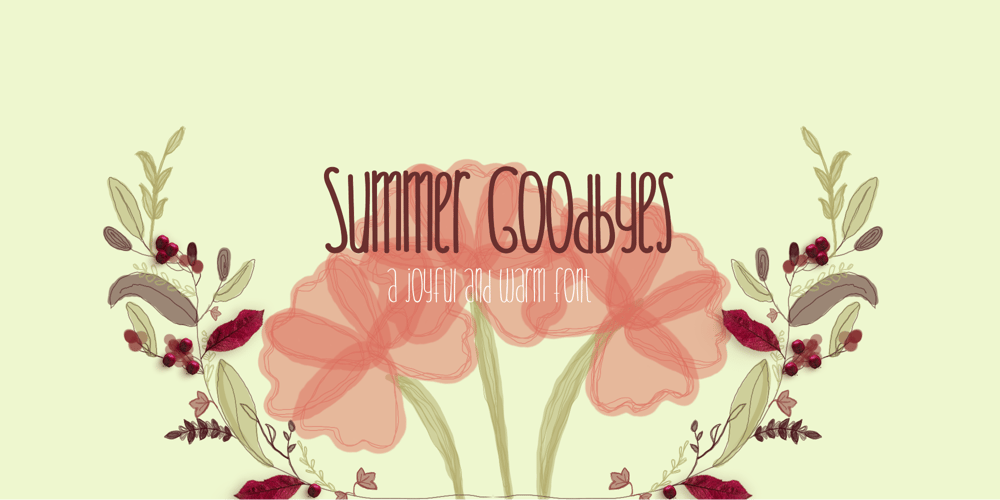
Summer Goodbyes Font Family was designed by Mikayla Tyner and published by Demi Michele. Summer Goodbyes contains 1 styles and family package options. Summer Goodbyes is a fun, warm, and playful font that welcomes the fall as the season changes. All characters are the same height to add a quirky and clean feeling to any project.It includes English capital and lowercase glyphs along with multilingual characters. It also includes minimal stylistic alternatives and discretionary ligatures and numbers as well.